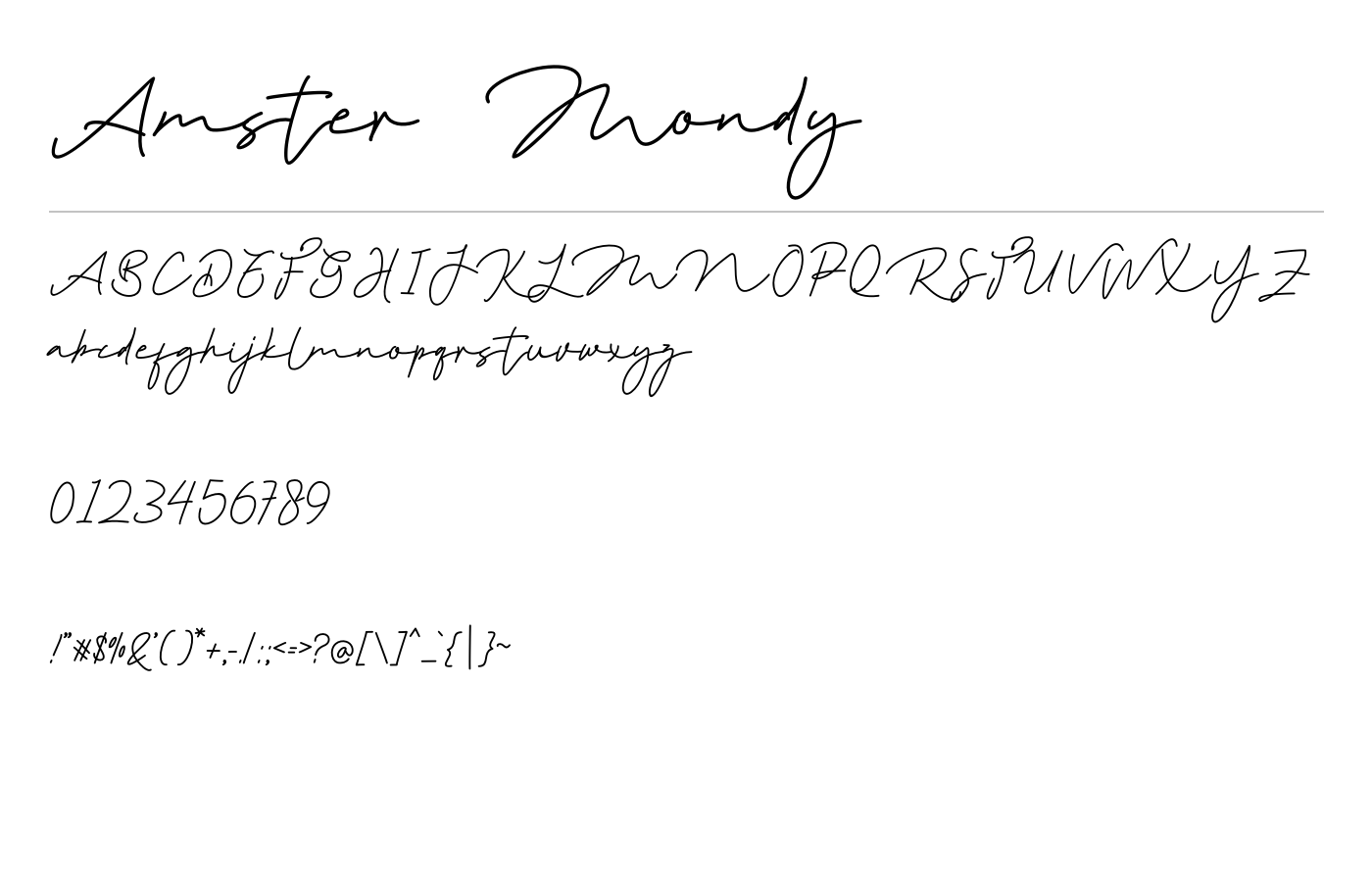
Amster Mondy is a delicate, handwritten script font with a light, airy feel. Its slender, flowing strokes and elegant letterforms convey a personal and sophisticated touch, making it perfect for branding, invitations, and creative projects that seek a stylish yet approachable look. This font works well in designs that require a refined, modern handwritten aesthetic.
Amster Mondy Font
About Amster Mondy Font
| Font family | Amster Mondy Font |
| Designer | ABDUL GHOFUR |